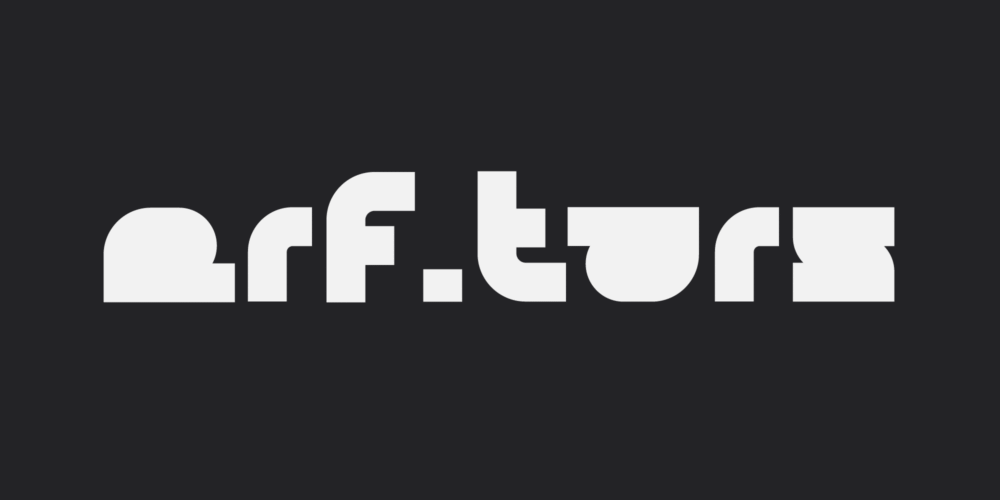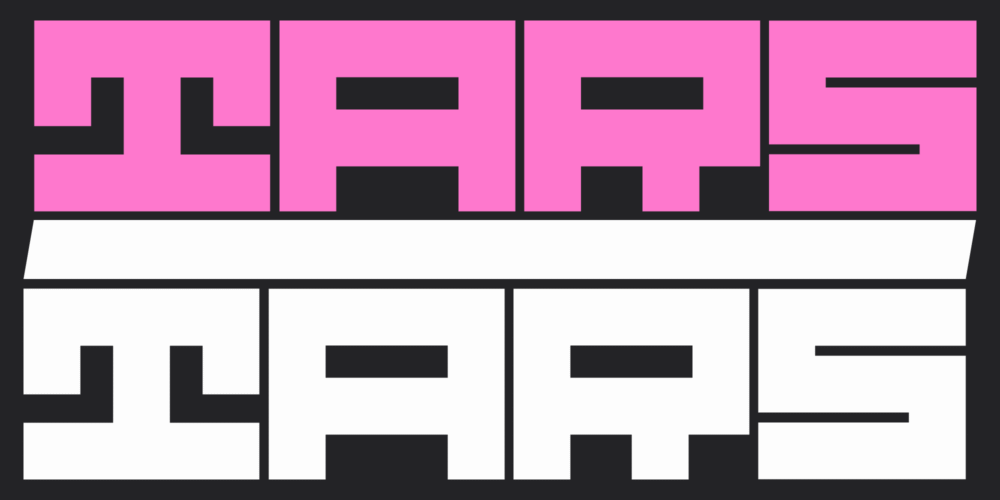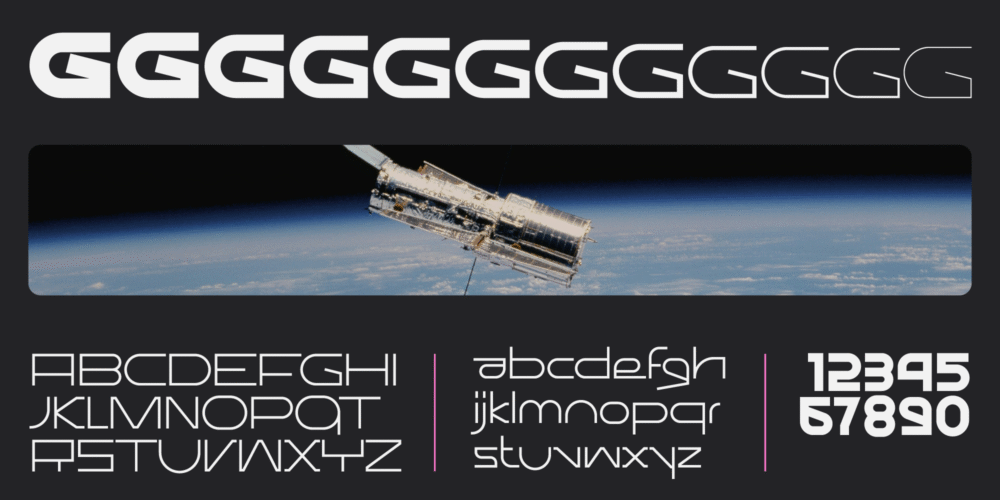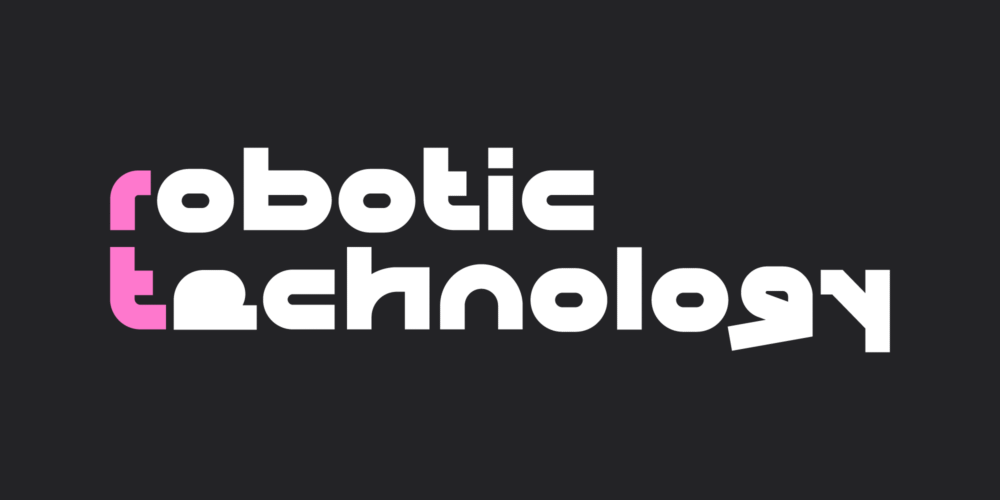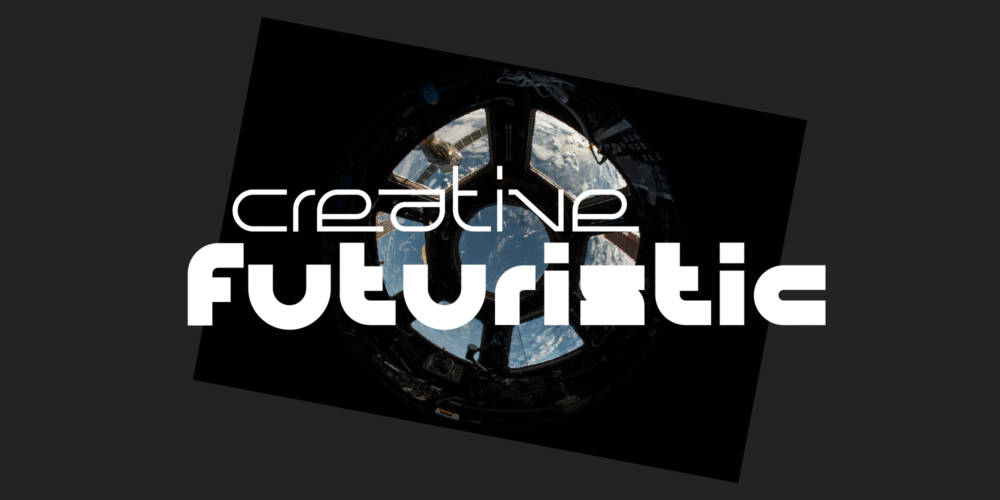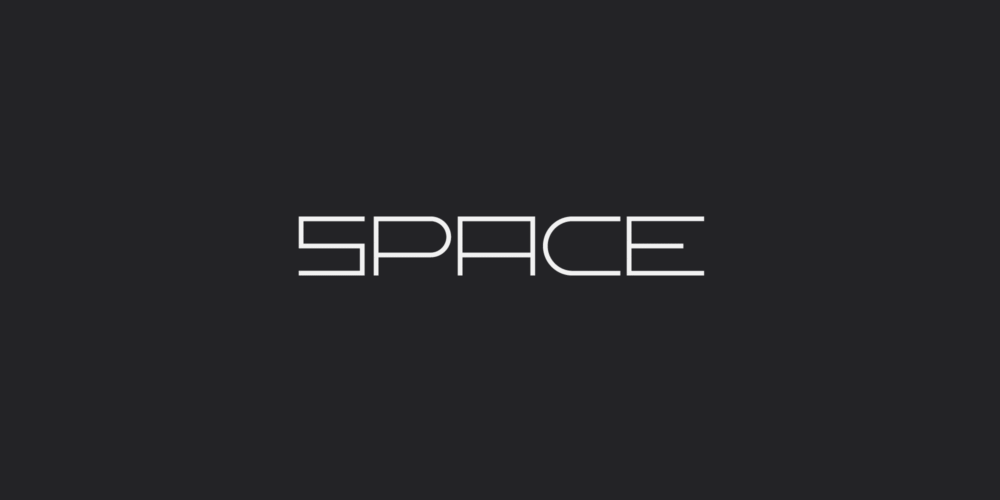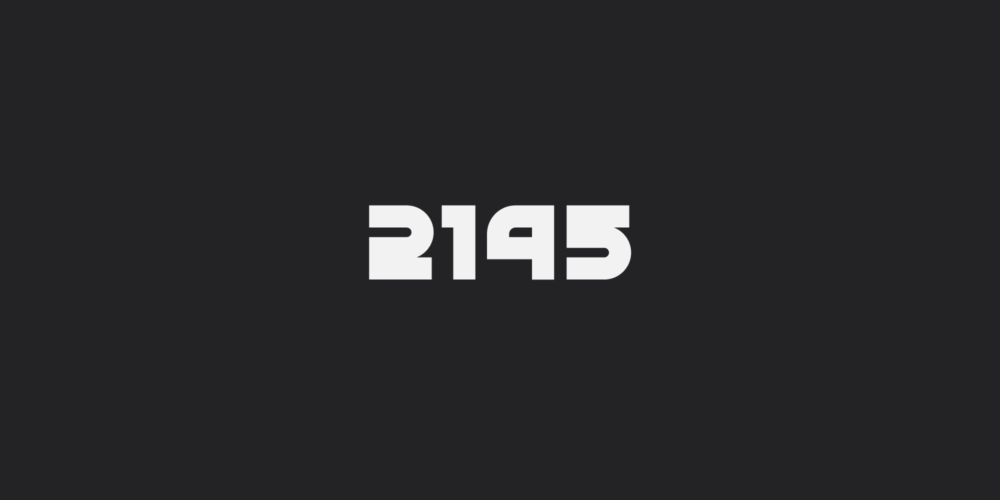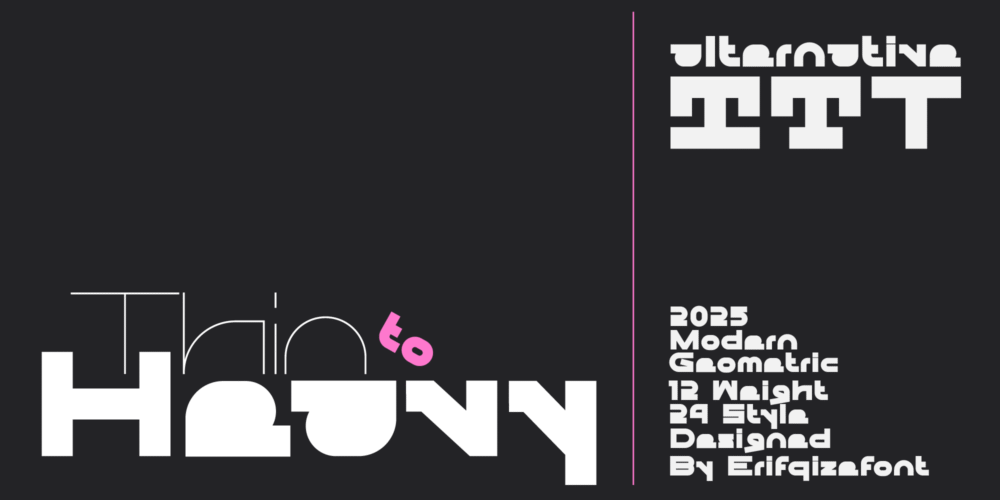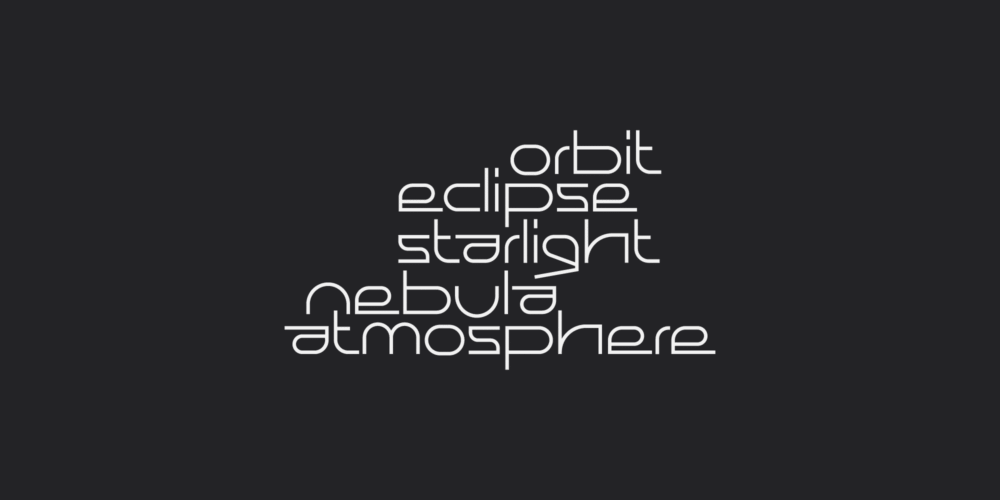
ERF Tars
Modern. Bold. Geometric.
ERF Tars is a futuristic display font family defined by sharp geometric cuts and brutalist aesthetics. Its bold, modular forms create a strong, unconventional voice—perfect for standout headlines, logos, and ultra-modern branding.
With 24 styles (12 uprights + 12 italics), ERF Tars offers expressive flexibility—from the subtle Whisper to the commanding Doom. Each character is crafted for maximum impact while maintaining legibility and rhythm. Whether for tech brands, posters, or UI design, ERF Tars brings structure and personality to every project.
24 Styles (12 Uprights + 12 Italics)
All caps (Uppercase & Small Caps)
Ligatures & Stylistic Alternates (OpenType)
ERF Tars is a futuristic display font family defined by sharp geometric cuts and brutalist aesthetics.